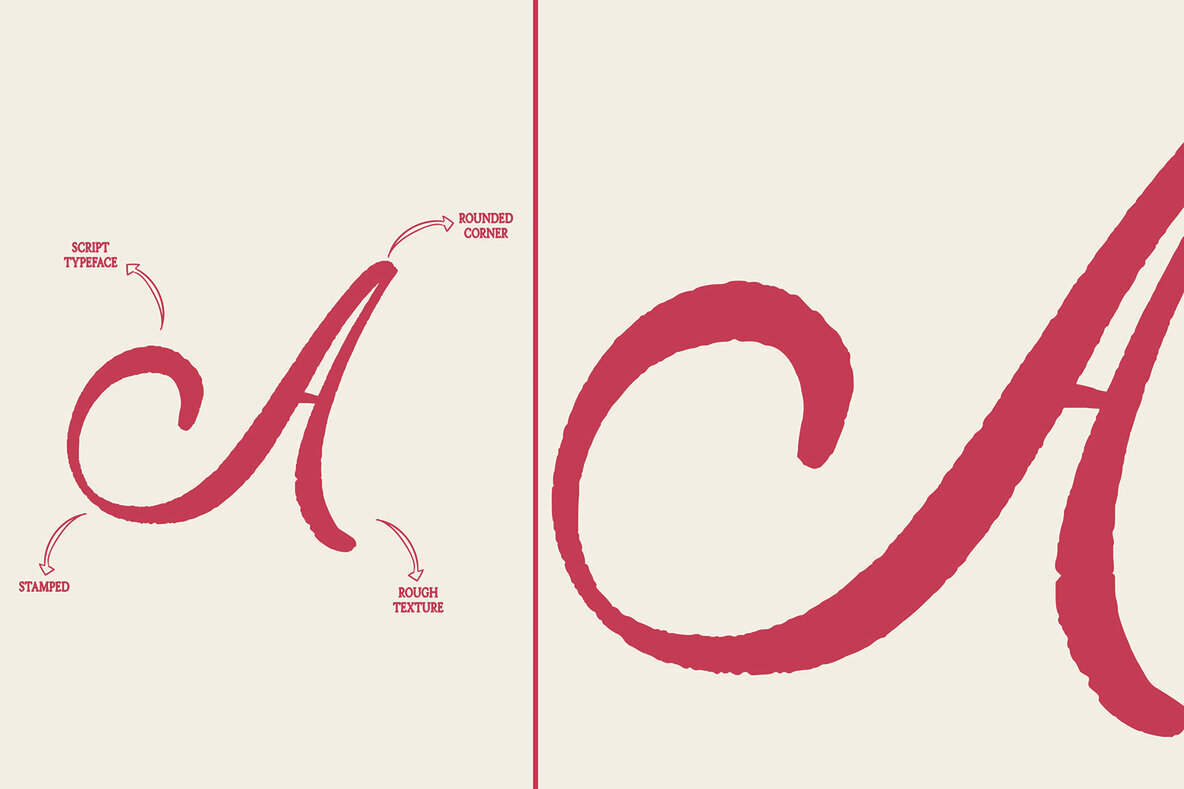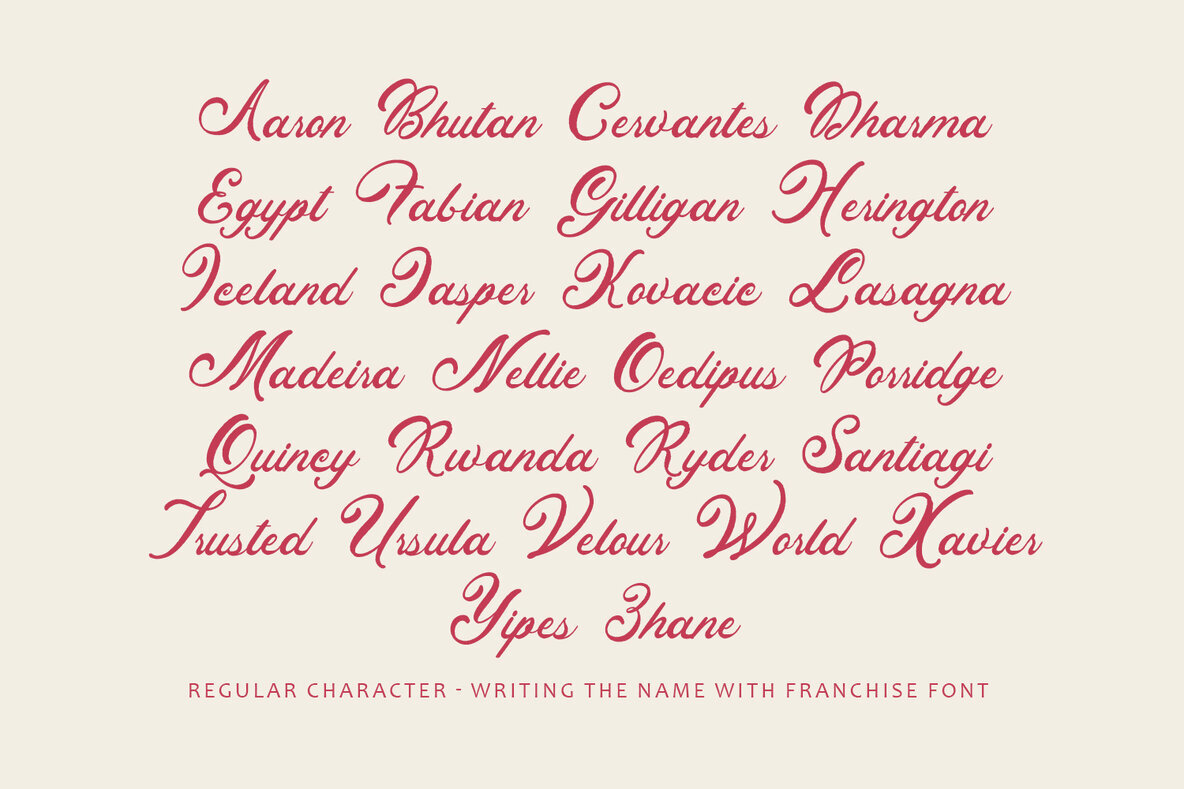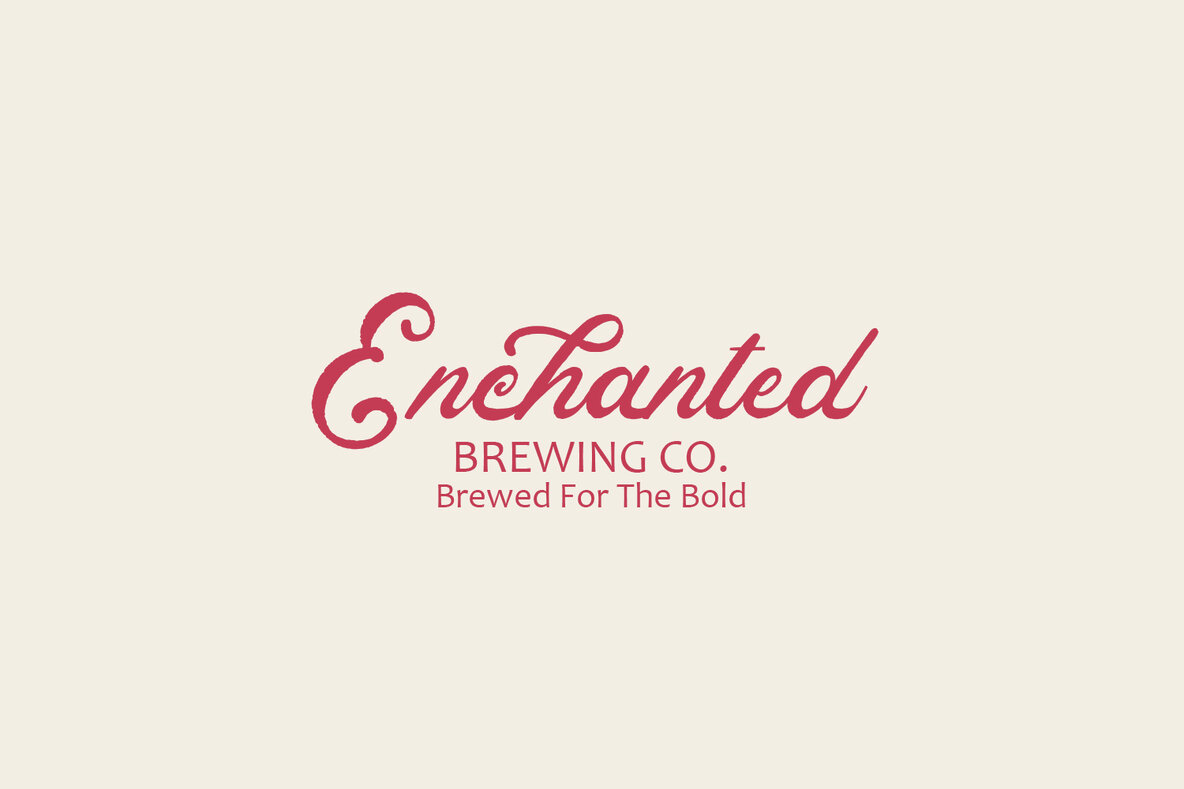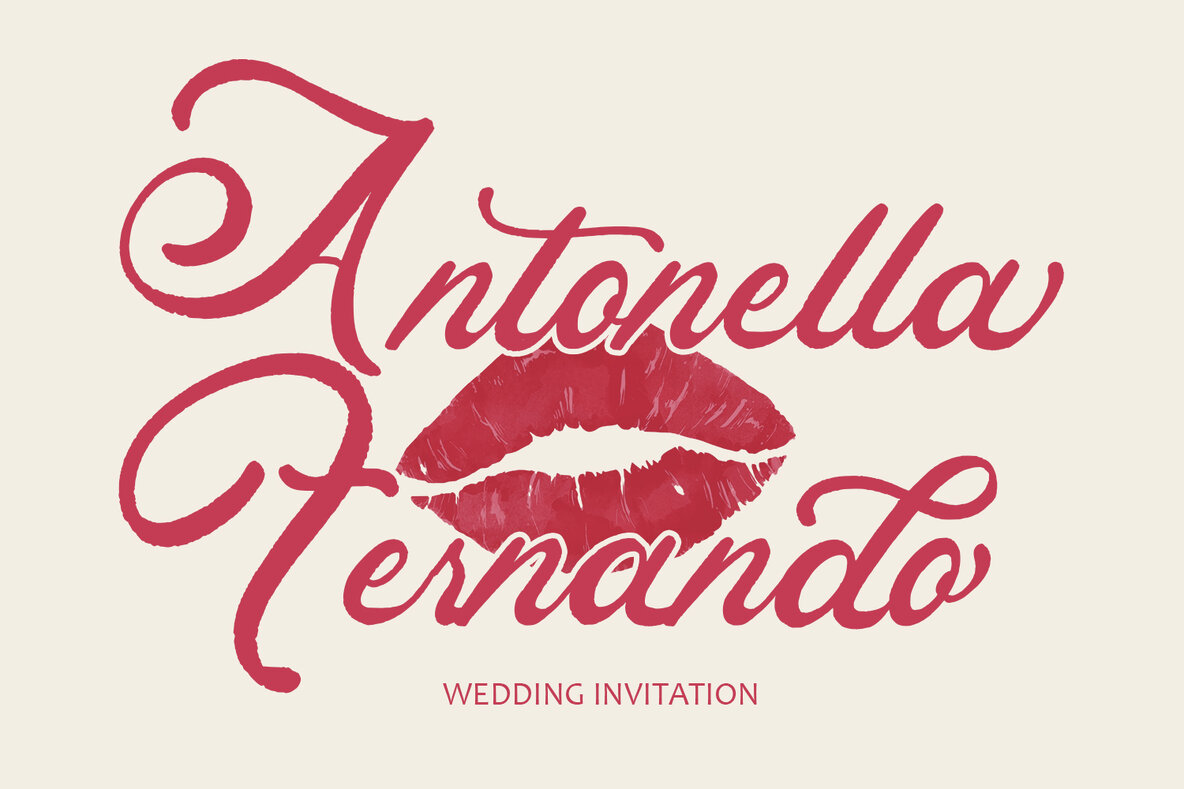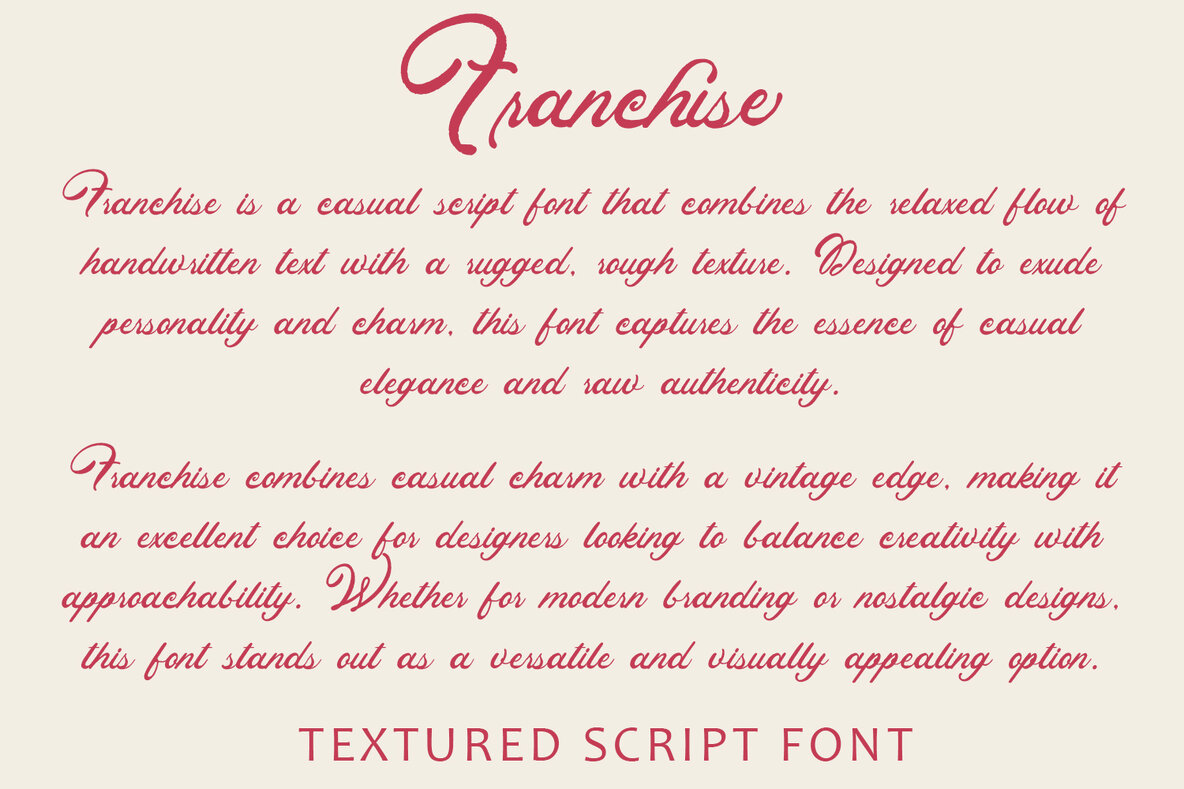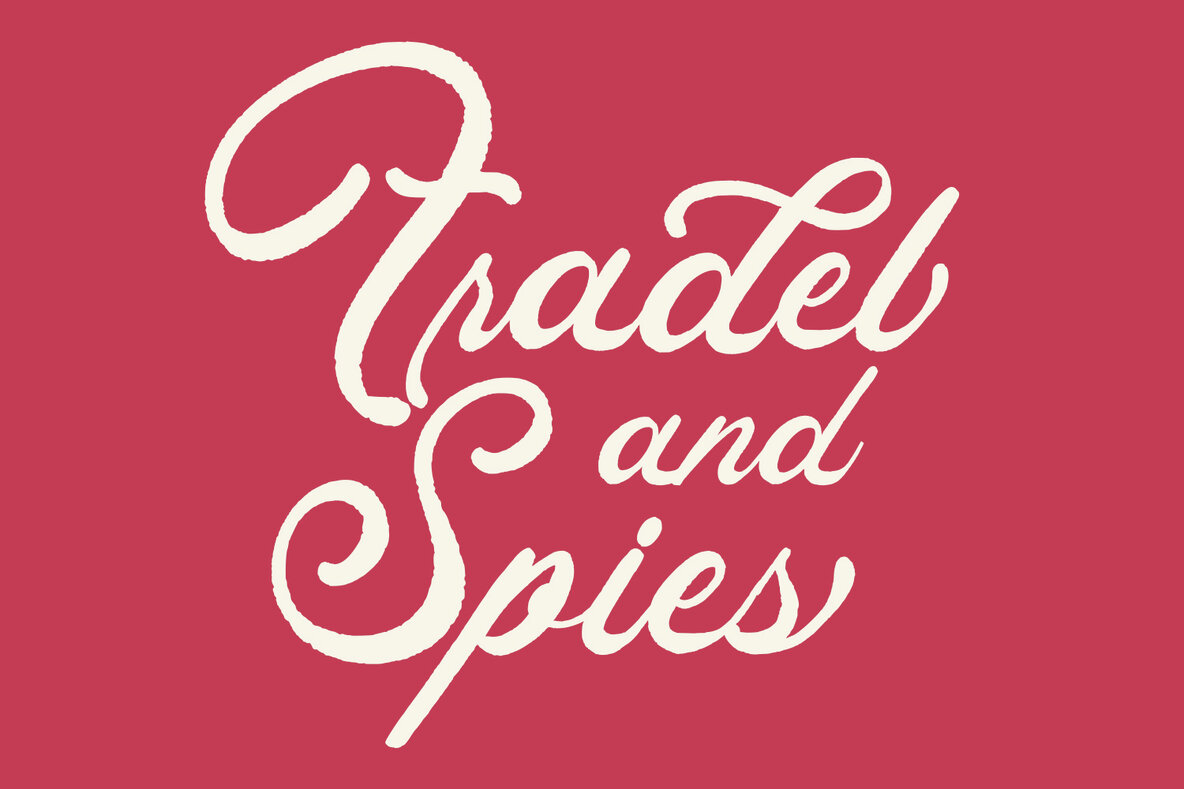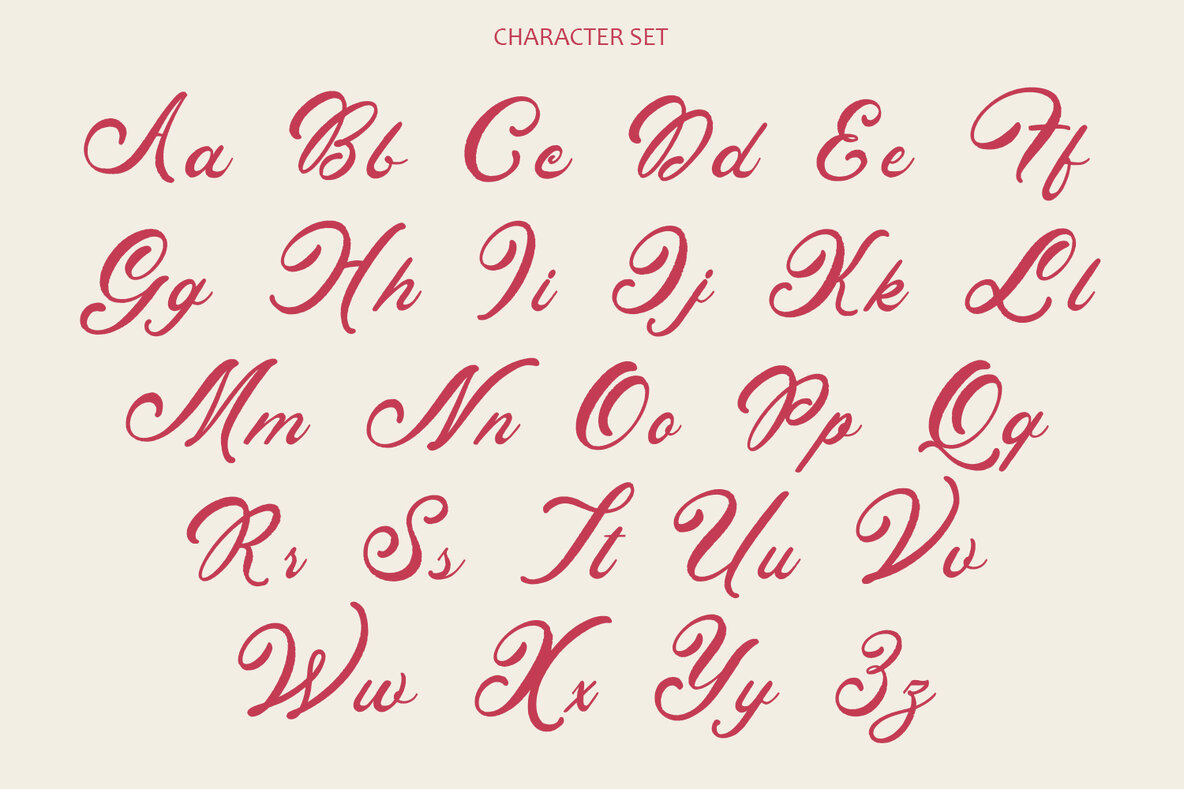
Franchise Font
Franchise
Franchise Font is a bold, dynamic textured script typeface designed to infuse personality and character into any creative project. This font embodies the essence of handcrafted lettering, offering a rugged, organic texture reminiscent of hand-brushed or hand-drawn typography. It is ideal for projects that aim for a handmade, rustic, or vintage aesthetic, providing depth and authenticity with its imperfect texture.
Franchise Font features fluid, cursive strokes that convey motion and elegance, combining legibility with artistic flair suitable for both headlines and smaller text elements. Its versatility shines across various creative applications such as logos, branding, packaging, posters, and social media graphics, enhancing designs with a tactile, realistic feel. The character set typically includes uppercase, lowercase, numbers, symbols, and punctuation, with some versions offering ligatures and alternates for added customization.
Designed to be bold and impactful, Franchise Font is perfect for projects requiring a strong visual identity, whether emphasizing key messages or crafting eye-catching titles. It suits branding endeavors like logo and identity design for businesses seeking a bold, handmade touch, as well as merchandise, signage, packaging, posters, and advertising. Franchise Font seamlessly merges style and substance, delivering the raw appeal of textured design with the fluidity of script typography for an unforgettable touch in any creative work.